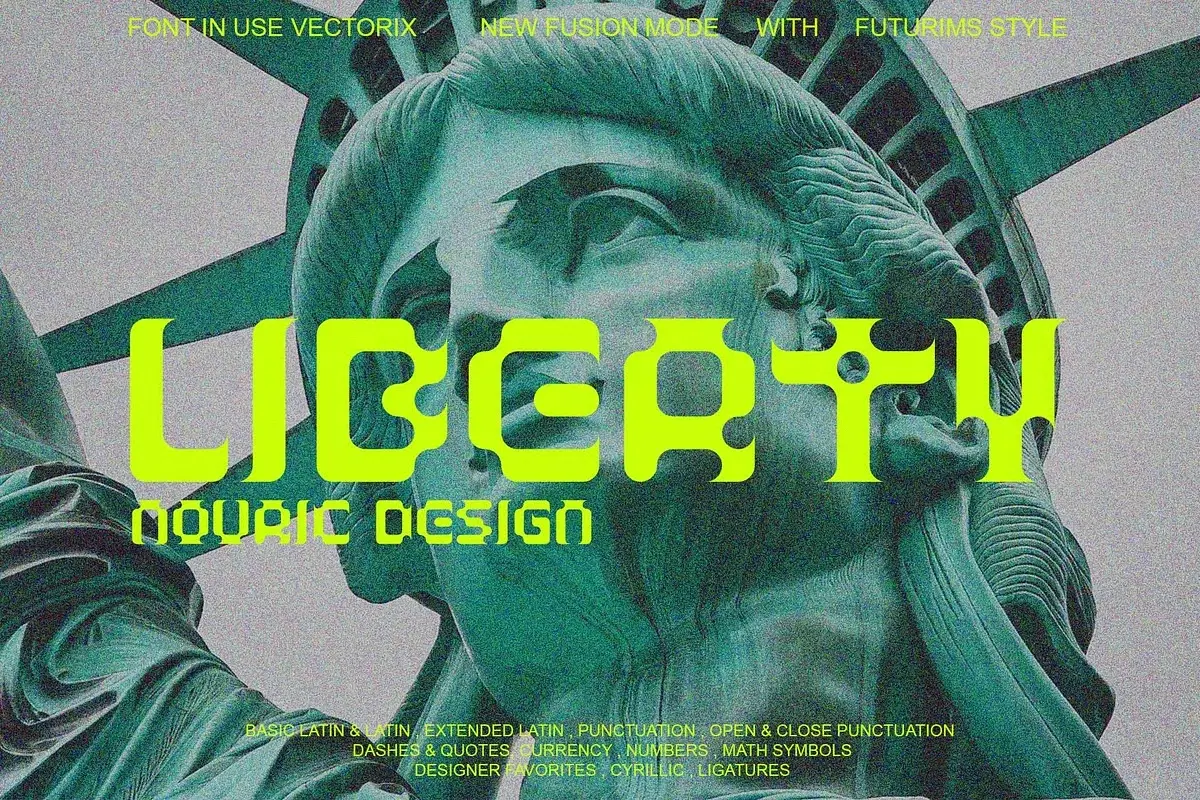
ND Vectorix Futurism Typeface
Nouric Design
Introducing VECTORIX — a sleek, cutting-edge futuristic font designed for the modern world. Its sharp angles, bold lines, and smooth curves create a dynamic look that feels both high-tech and visionary. Perfect for tech brands, sci-fi projects, or any design that needs a touch of innovation. Elevate your work with VECTORIX, the font of tomorrow!
Features:
• Basic Latin character set
• Advanced Latin character set
• Basic Cyrillic character set
• Advanced Cyrillic character set
• Uppercase
• Lowercase
• Punctuation
• Open & Close Punctuation
• Dashes & Quotes
• Currency
• Numbers
• Math Symbols
• Designer Favorites
• Cyrillic